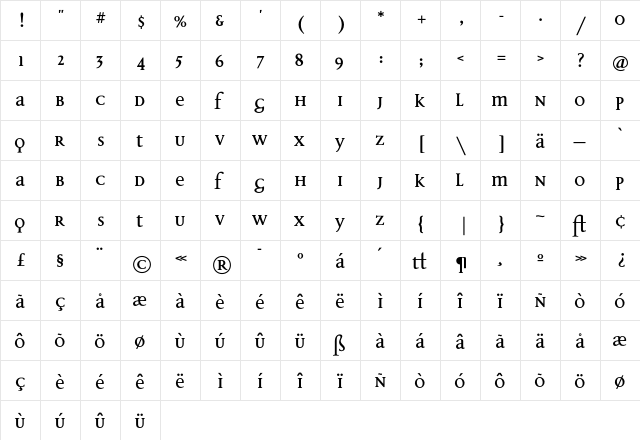
Disturbance Bold
Design Context for Disturbance Typeface
Disturbance is a composed and adaptable typeface that performs quietly and consistently across a wide range of design contexts. The heavy weight commands attention and anchors typographic hierarchies.